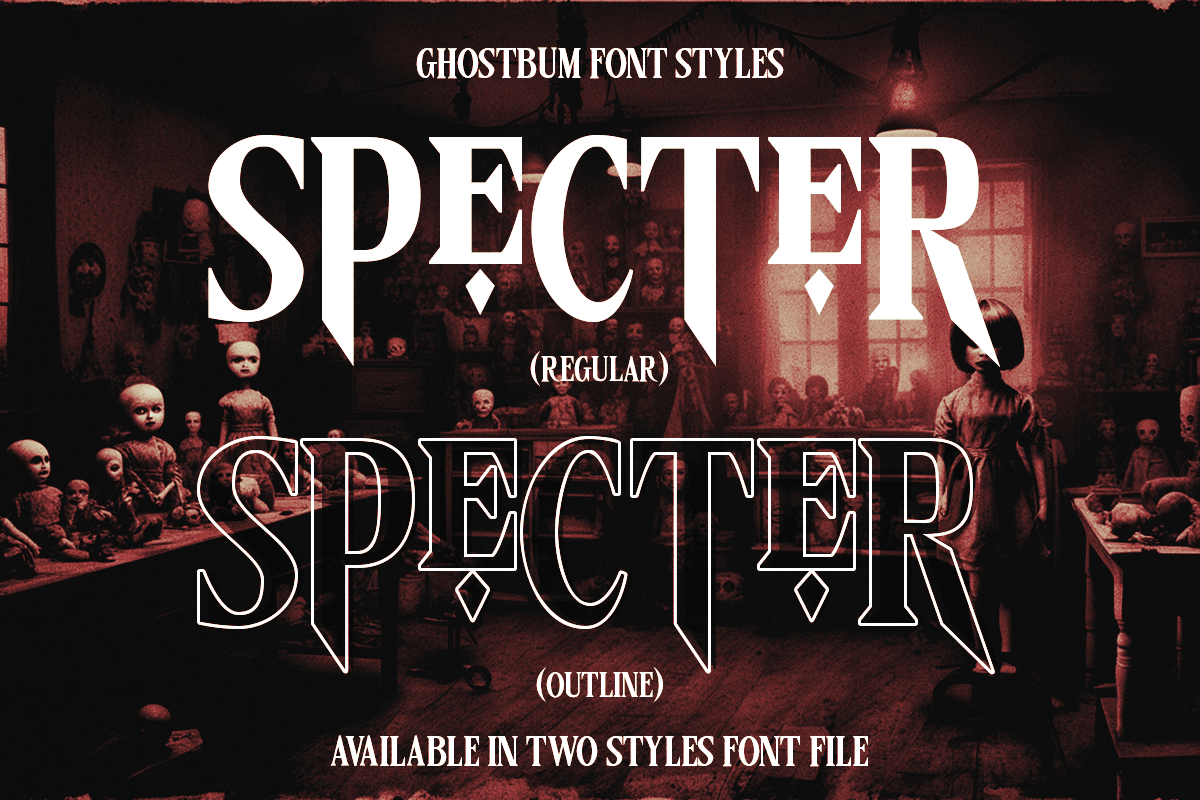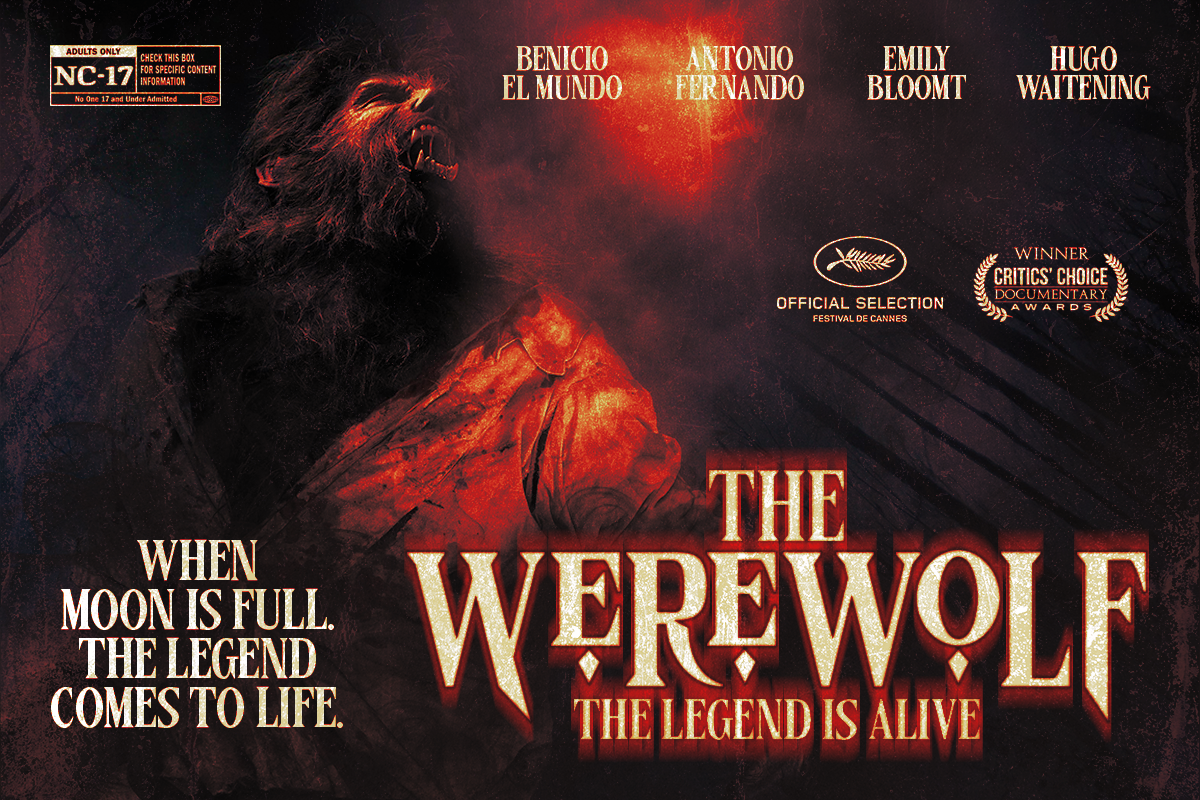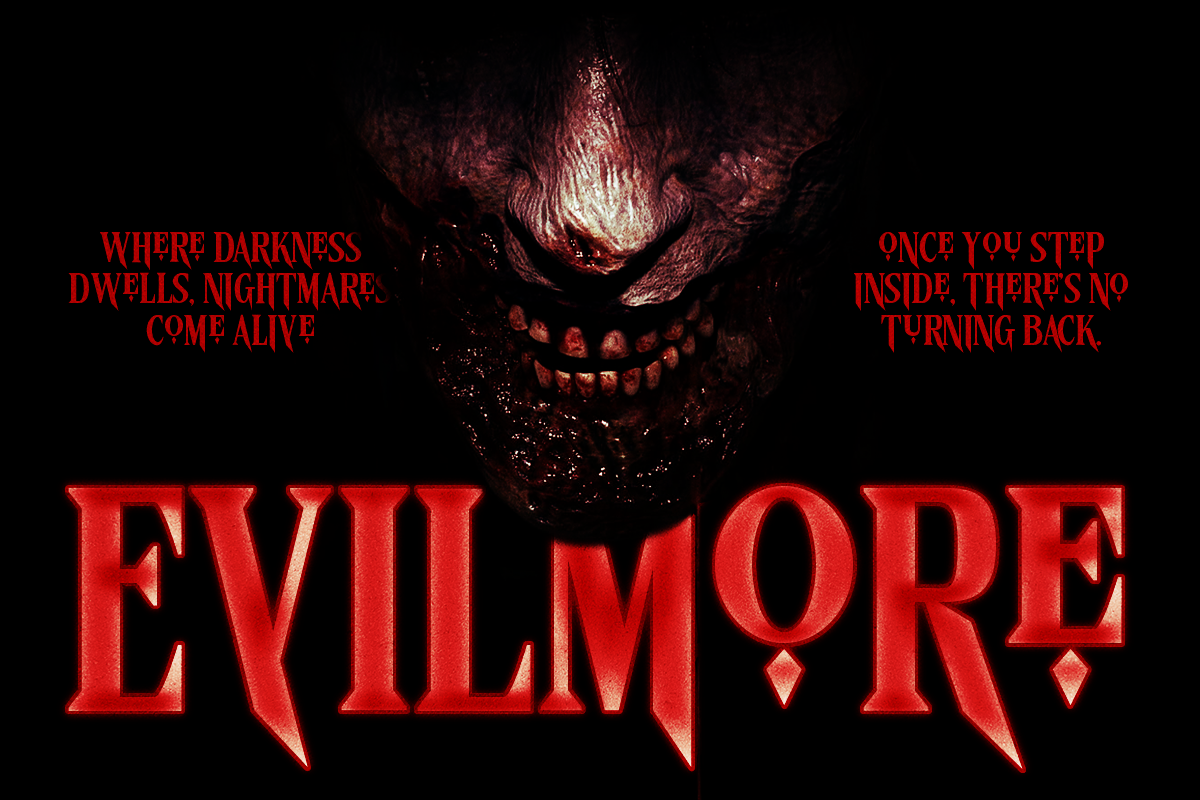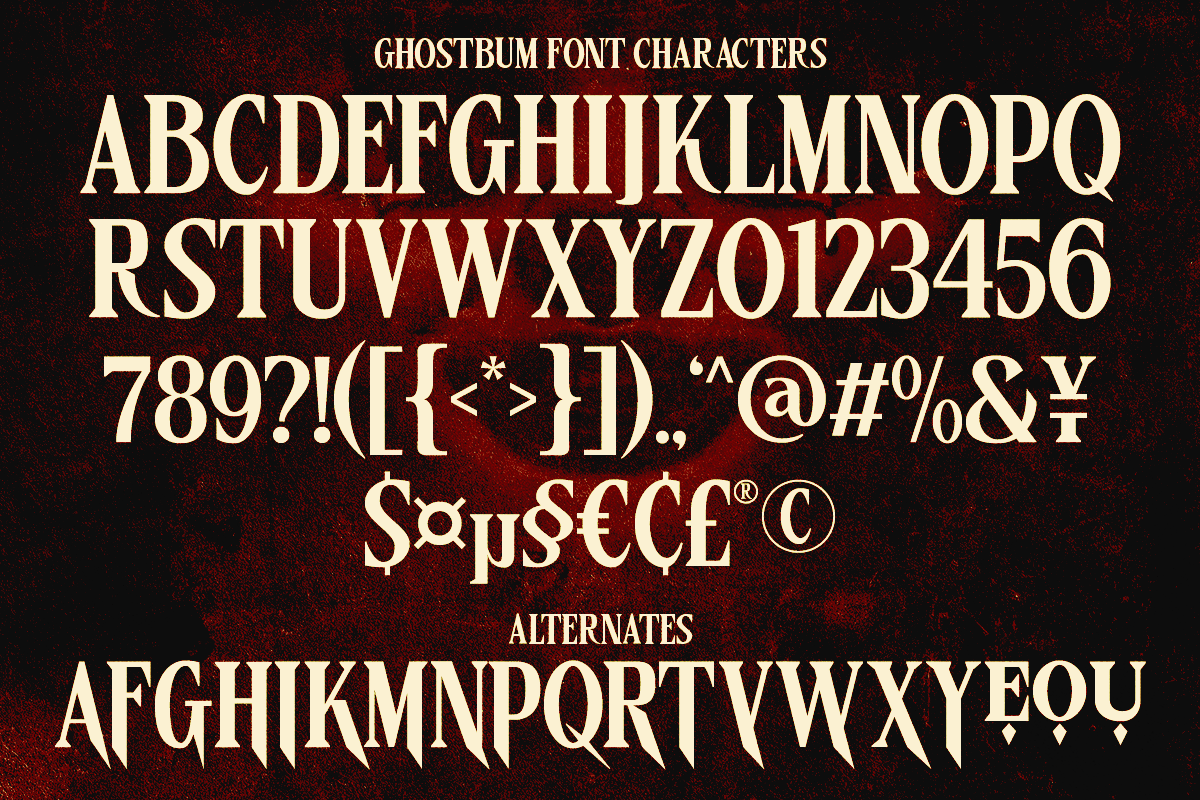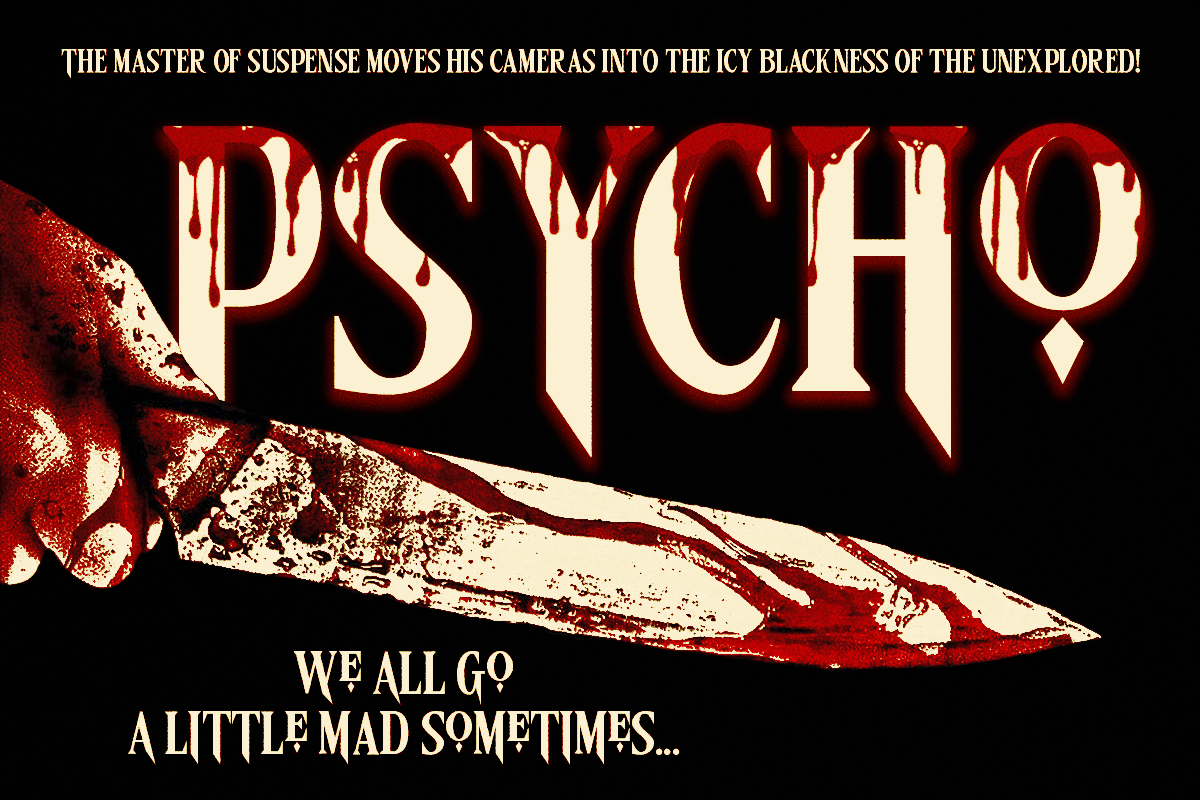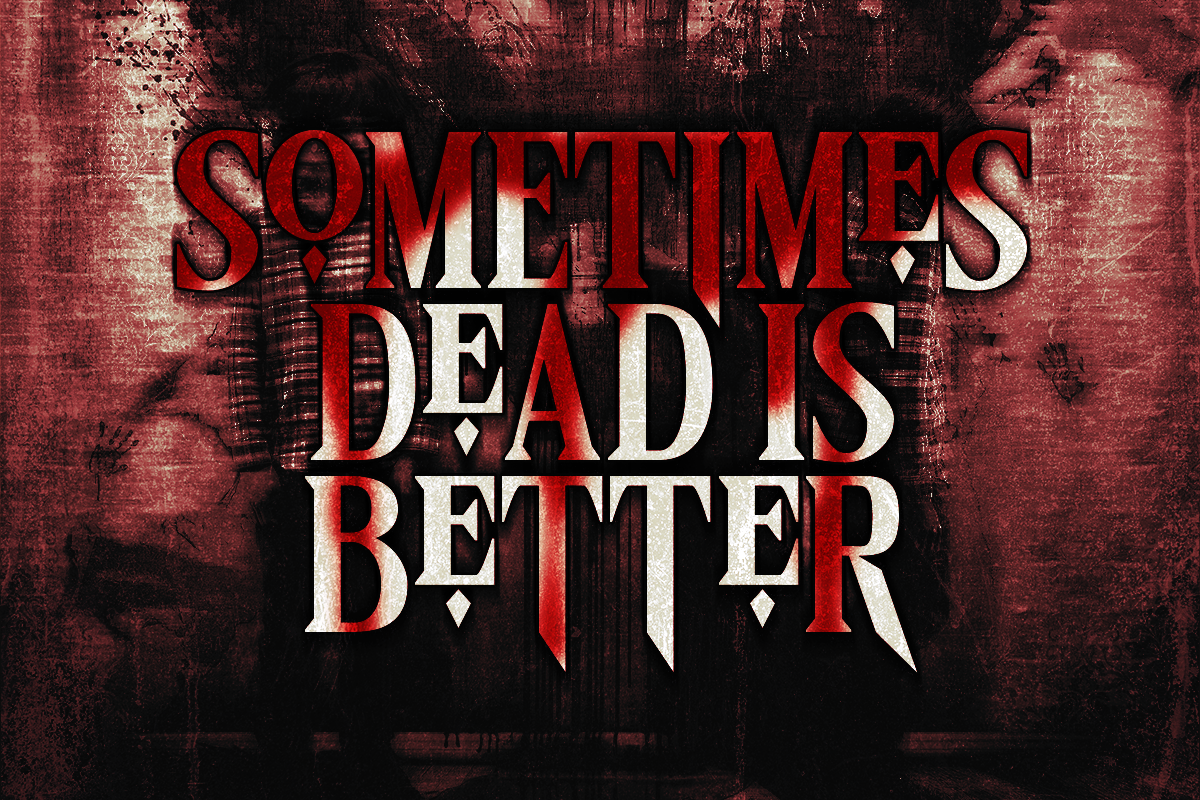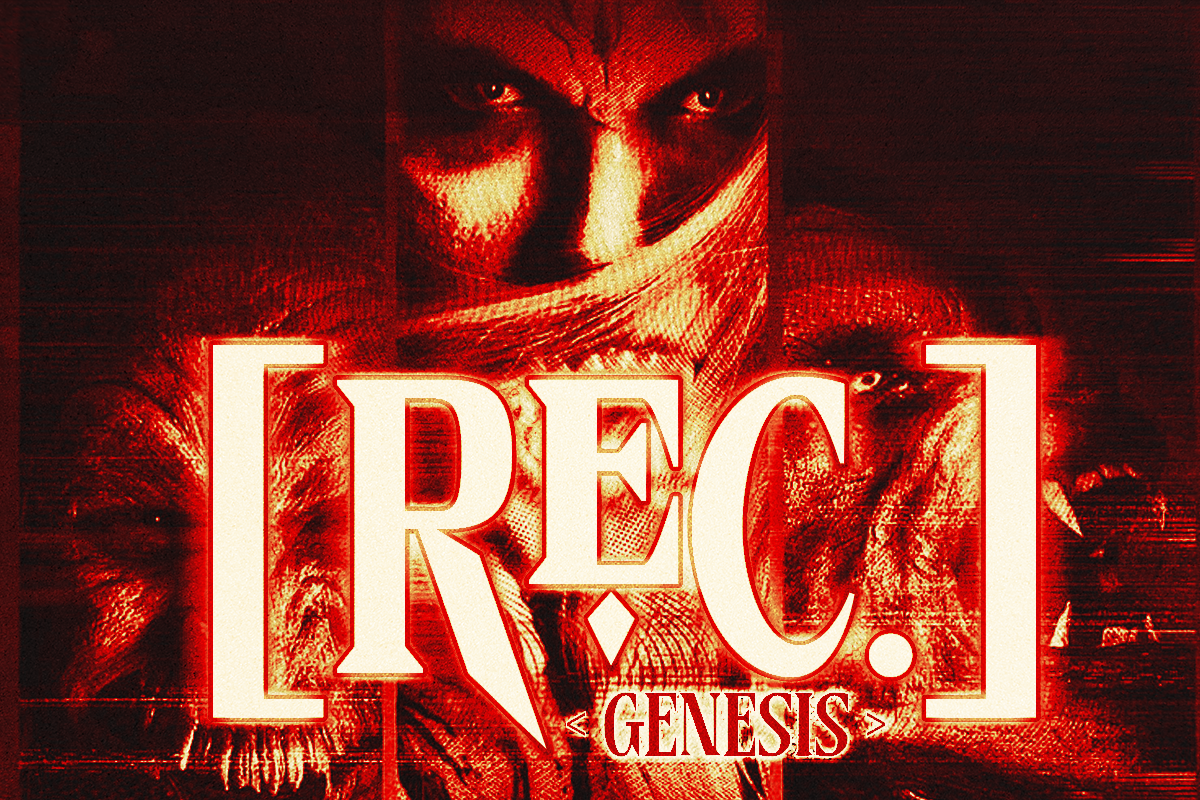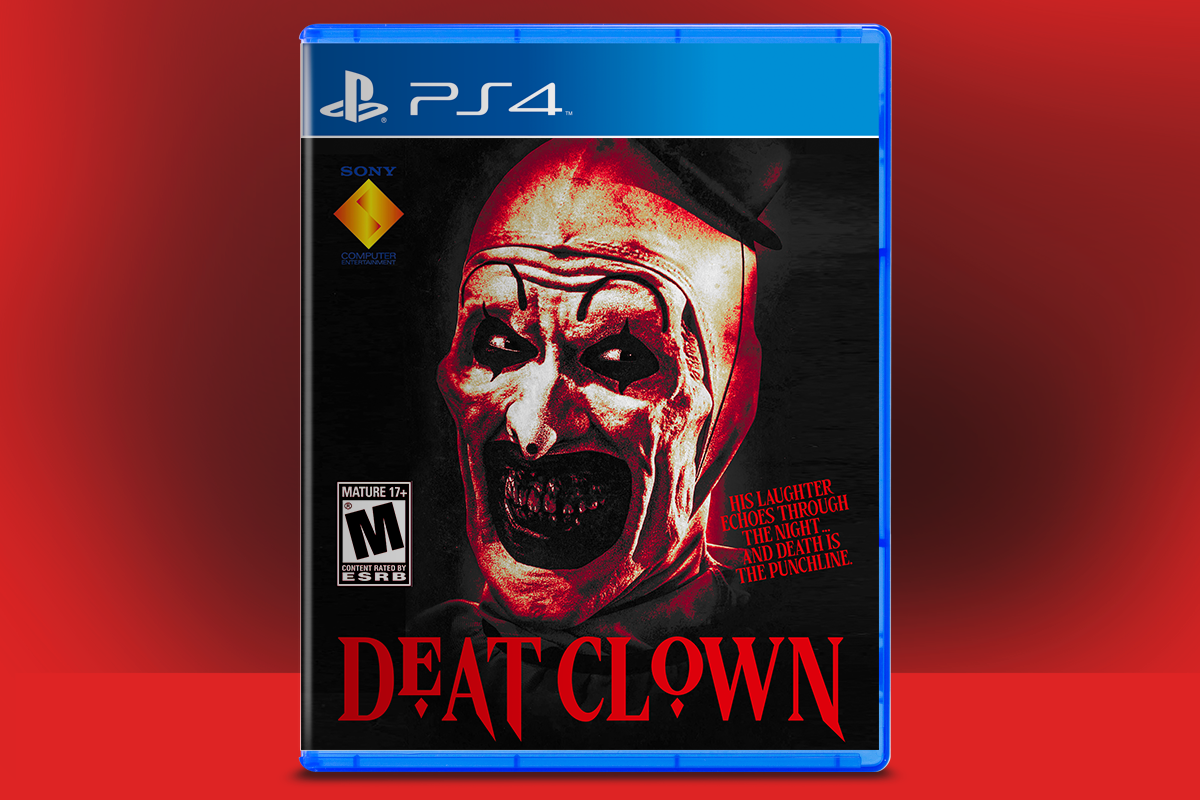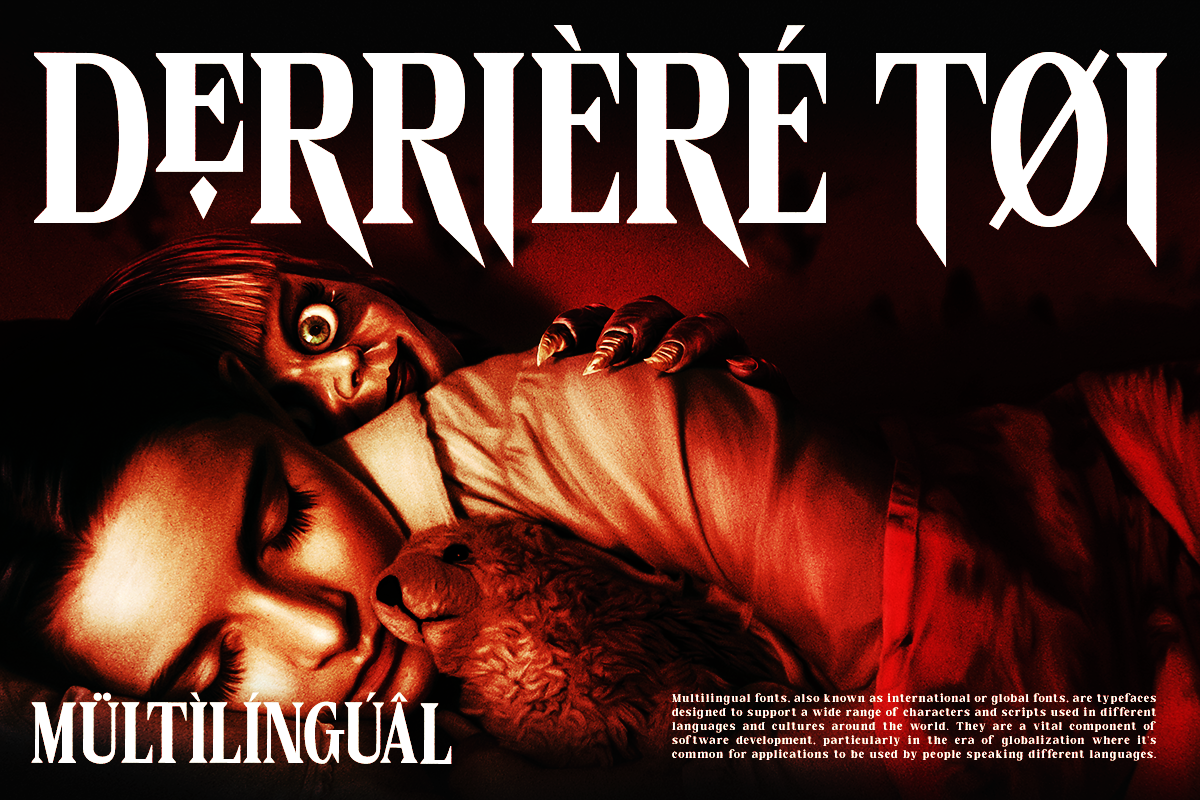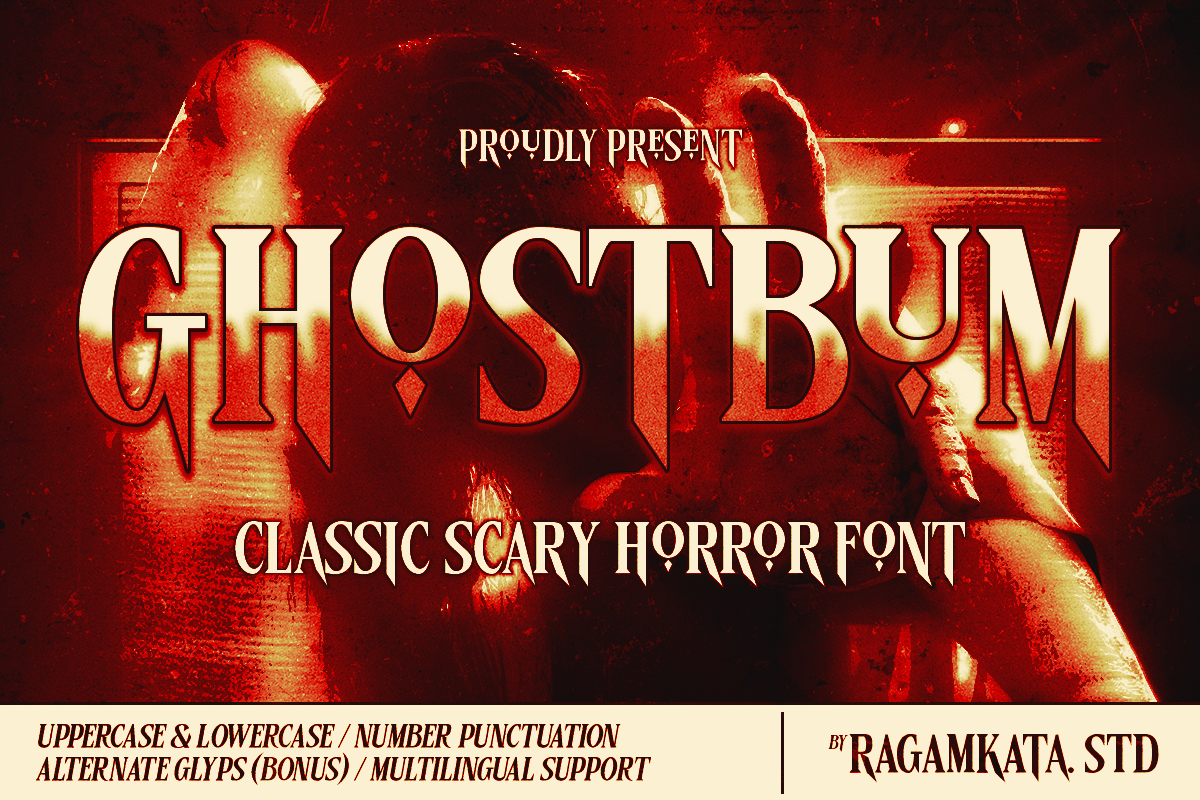
Ghostbum - Horror Font
Introducing Ghostbum a classic scary horror font inspired by 70s horror movie posters. With sharp serifs, an elongated design, and alternate characters for a stunning look, it captures the suspense and elegance of classic horror.
Available in two styles : Regular and Outline, Ghostbum is perfect for Halloween projects, movie titles, book covers, and more, adding a sinister and timeless charm to any design.
- Two styles: Regular and Outline
- Uppercse & Lowercase
- Alternates Characters (Bonus)
- Punctuation & Number